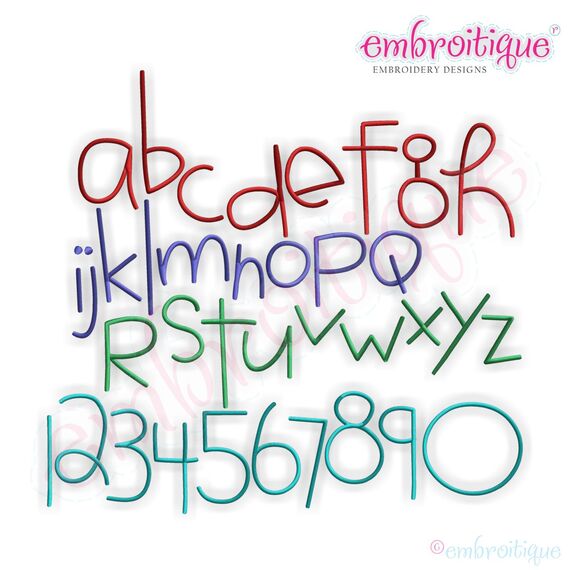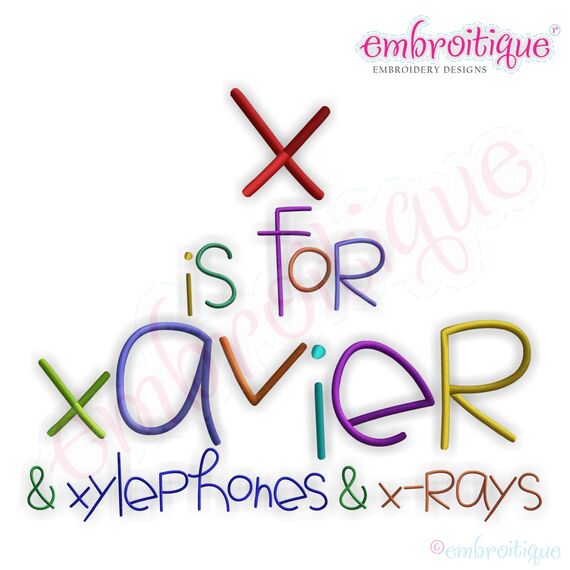
Xavier Monogram Font Set
This is such a fun set of letters and numbers! Use this set to create your own names, sayings, and monograms! Includes letters a-z and numbers 0-9 in each size listed.